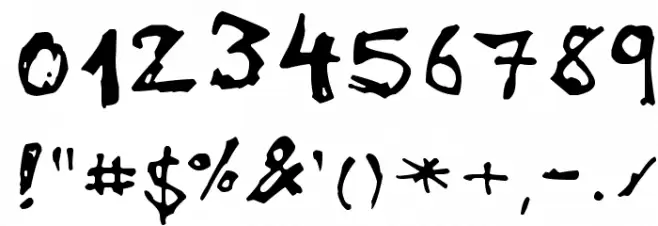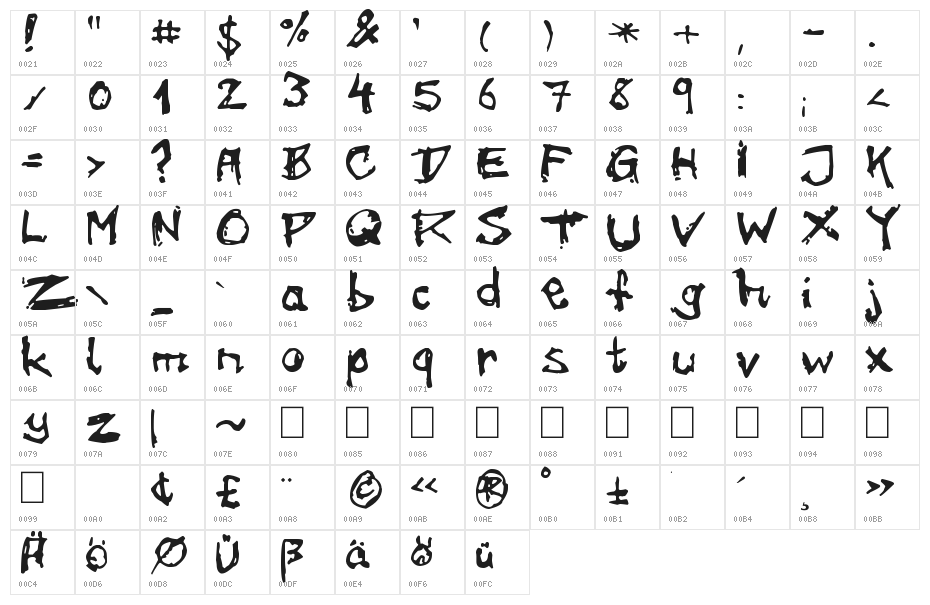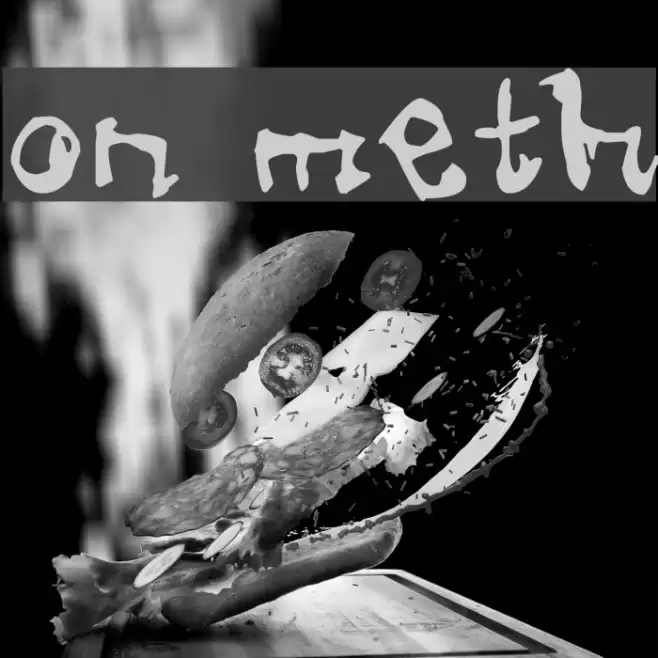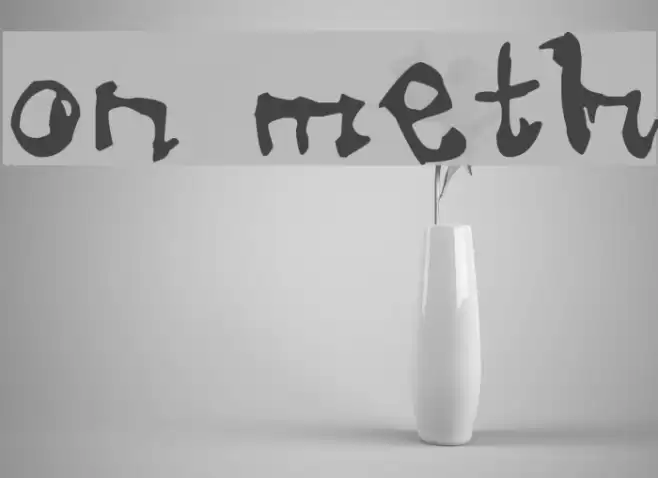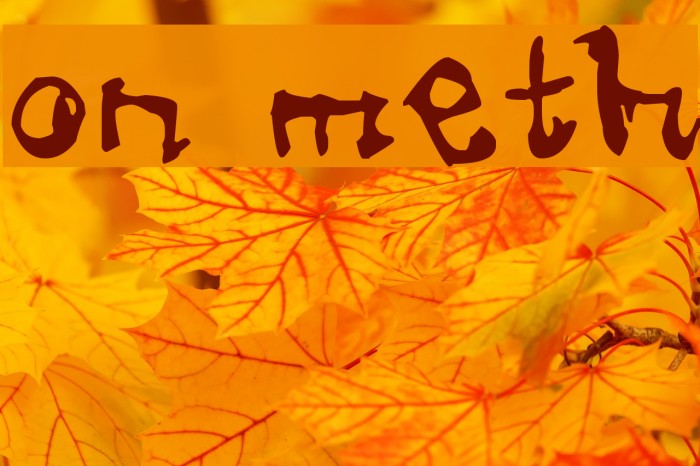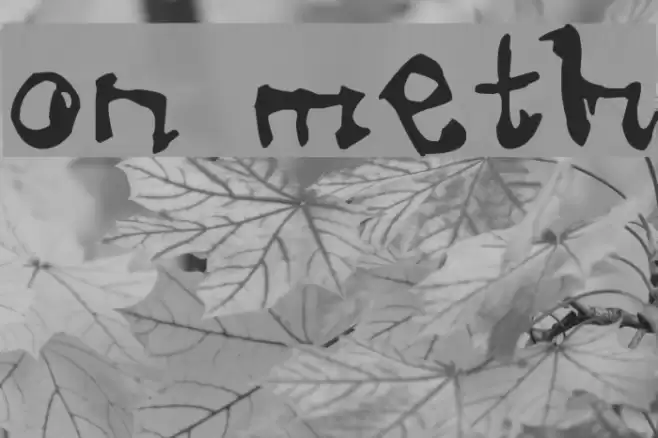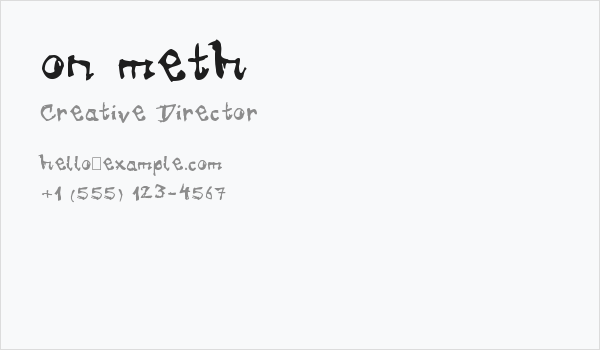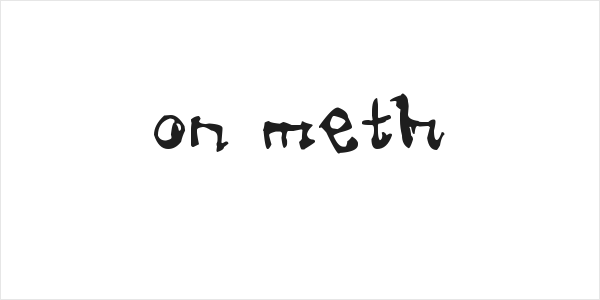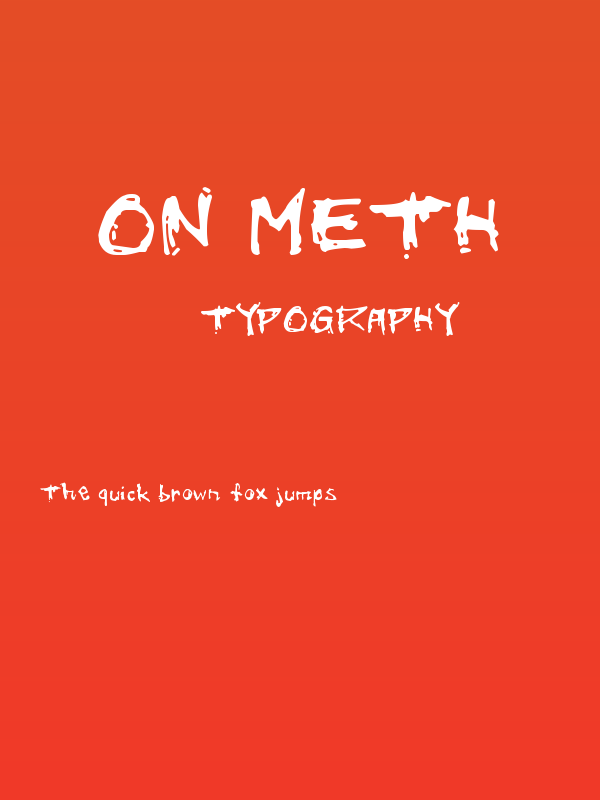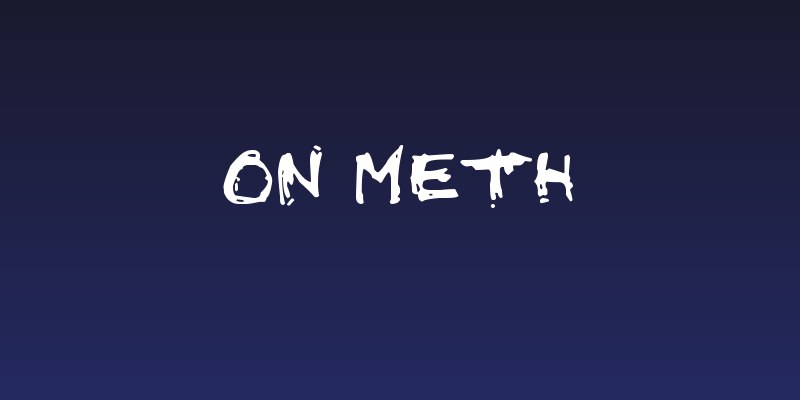
on meth Font
on meth Description
This font exudes a raw, energetic vibe with its bold, brush-like strokes and irregular edges. The characters are crafted with a hand-drawn aesthetic, giving them a unique and expressive appearance. Each letter features varying thicknesses, adding to the dynamic and spontaneous feel of the typeface. The uppercase and lowercase letters maintain a consistent style, while the numbers and special characters complement the overall design with their equally bold and artistic flair. This font is perfect for projects that require a touch of creativity and individuality.
| Proposed Projects | Ideal for artistic posters, album covers, graffiti art, and creative branding. |